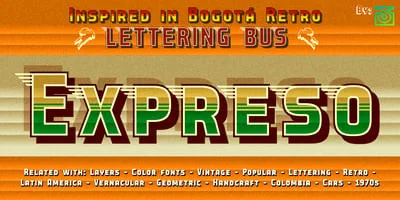
Expreso Font
The Expreso Font excels in various design applications including espresso bar branding, express coffee shop signage, rapid cafe service communications, quick breakfast restaurant materials, fast coffee delivery packaging, express morning bistro identities, speed coffee roasting promotions, urgent coffee catering signage, express barista training materials, and dynamic coffee projects that demand espresso intensity and express sophistication.
What makes the Expreso Font exciting is its energizing embodiment of coffee culture intensity and express service efficiency through letterforms that capture the essence of concentrated espresso power and the dynamic urgency of fast-paced coffee service. This typeface demonstrates exceptional energy through carefully crafted characters that suggest the rich concentration of espresso shots, the swift precision of skilled baristas, and the invigorating rush that comes from perfectly brewed coffee and efficient express service. The font's espresso personality makes it perfect for coffee shops and express service providers seeking to communicate caffeinated energy, brewing excellence, and the kind of concentrated intensity that creates extraordinary coffee experiences through typography that literally buzzes with espresso-powered enthusiasm.
The Expreso Font family typically includes energetic weight variations that enhance the coffee aesthetic, featuring dynamic styling options and extended character sets optimized for coffee communications and express service applications. These family options often include espresso-inspired alternates, coffee symbols, and express decorative elements that provide designers with comprehensive tools for creating authentically coffee-focused typography that celebrates brewing culture while maintaining contemporary design appeal and coffee industry credibility.
Coffee professionals and express service organizations consistently choose Expreso Font for projects requiring typography that communicates coffee authenticity and express excellence. This typeface delivers exceptional performance in coffee marketing, cafe branding, and express communications where establishing energy and creating caffeinated atmosphere is essential for coffee lover engagement. The font's express character makes it particularly effective for delivery and quick service applications. Download Expreso Font today to access this energetically rich typeface that transforms coffee communications with its espresso intensity and express sophistication, creating compelling cafe experiences that honor the magnificent artistry of coffee brewing while celebrating the dynamic energy that defines authentic espresso culture and express service excellence.